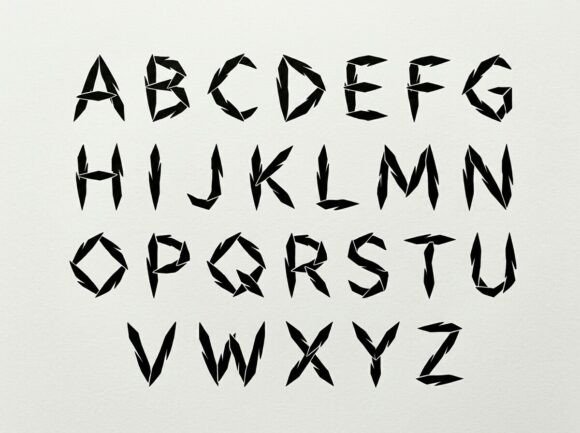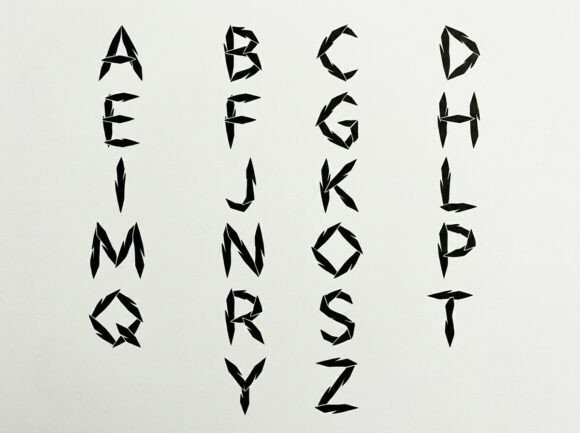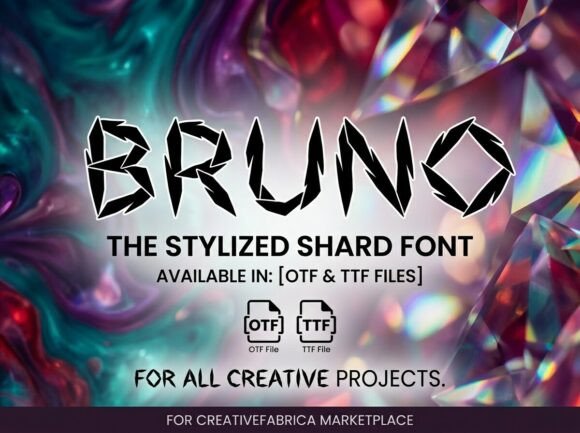
Bruno Font: Elevate Your Design with an Avant-Garde Display Font
In the world of typography, a font can make or break a design. For creators looking to push boundaries and make a statement, the Bruno Font is an exceptional choice. Engineered to be the focal point of any composition, this avant-garde decorative display font boasts a commanding visual personality and unique artistic flourishes. Whether you’re a seasoned designer or a crafty entrepreneur, Bruno Font is the perfect tool to elevate your brand and take your design to the next level.
Unleash Your Creativity with Bruno Font
Bruno Font is not just a typeface; it’s a design statement. Characterized by its strong, artistic soul and high-end, polished finish, this font is perfect for creators who refuse to blend in. The design team behind Bruno Font has carefully crafted each letter to ensure that every character acts as a standalone work of art. By focusing on the intricate craftsmanship of every individual letter, they’ve created a font that’s ideal for high-impact headlines, signature logos, and branding.
Ideal Use Cases for Bruno Font
Bruno Font is a versatile typeface that can be used in a variety of design applications. Some of the ideal use cases for this font include:
- High-impact headlines: Make a statement with bold, attention-grabbing headlines that demand attention.
- Signature logos & branding: Create a unique and memorable brand identity with a custom logo that showcases your personality.
- Conceptual packaging: Elevate your product packaging with a luxurious and eye-catching design.
- Poster & social media design: Stand out on social media and create striking posters that grab attention.
What to Expect with Bruno Font
Please note that Bruno Font is an All-Caps (Uppercase Only) display typeface. By omitting lowercase characters, the design team has focused entirely on the intricate craftsmanship of every individual letter, ensuring each one acts as a standalone work of art.
Why Choose Bruno Font?
With so many fonts available, why choose Bruno Font? Here are just a few reasons why this font stands out:
- Unique artistic flourishes: Each letter is carefully crafted to ensure a high-end, polished finish.
- Commanding visual personality: Make a statement with a font that’s designed to grab attention.
Tips for Using Bruno Font Effectively
To get the most out of Bruno Font, here are a few tips to keep in mind:
- Use it sparingly: Bruno Font is designed to make a statement, so use it sparingly to avoid overwhelming your design.
- Experiment with colors and textures: Take advantage of the font’s unique artistic flourishes by experimenting with different colors and textures.
- Pair it with a neutral font: Balance out the boldness of Bruno Font by pairing it with a neutral font for body text.
In conclusion, Bruno Font is an exceptional choice for designers and crafters looking to elevate their design and make a statement. With its unique artistic flourishes, commanding visual personality, and universal compatibility, this avant-garde decorative display font is sure to take your design to the next level.